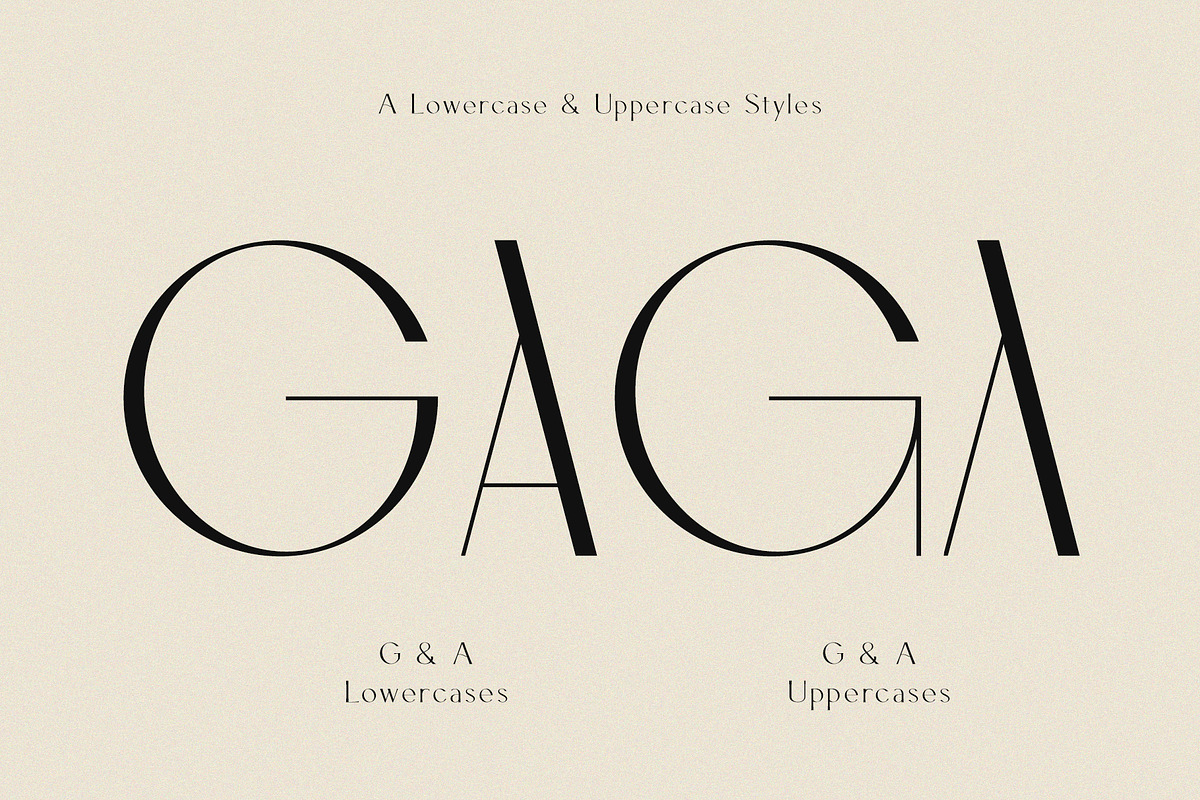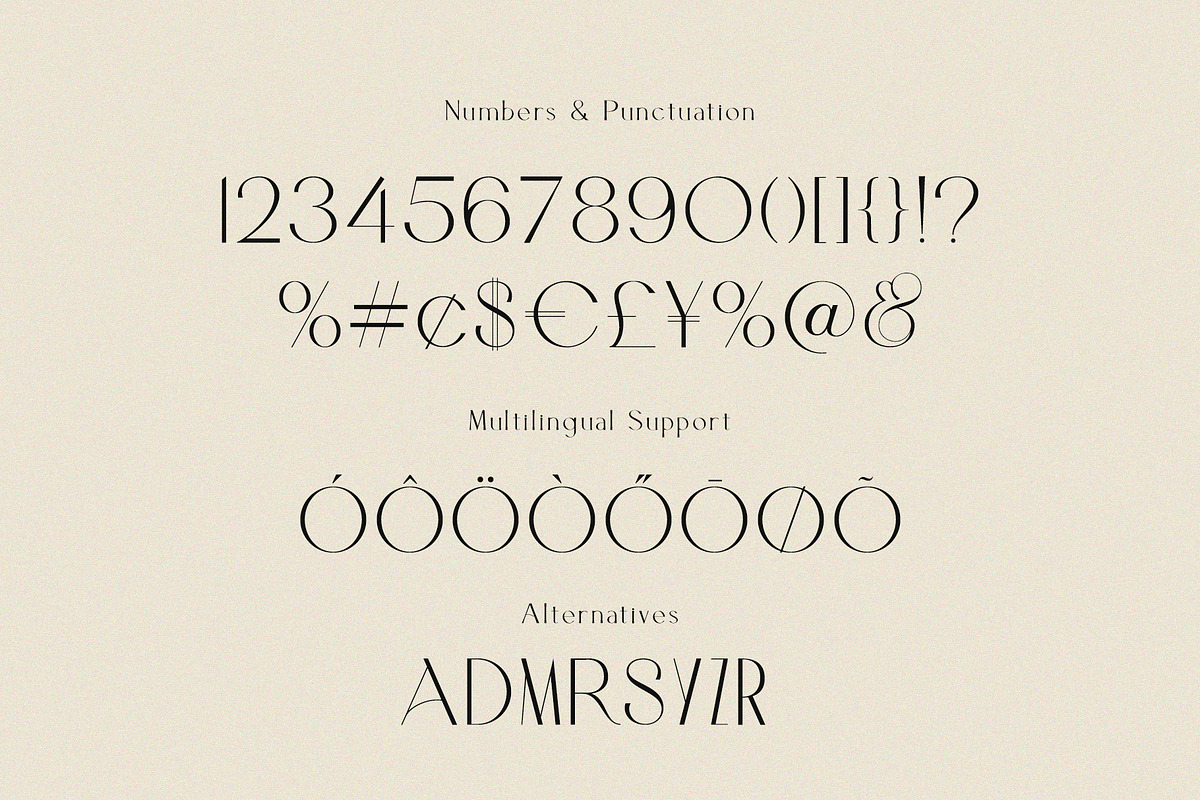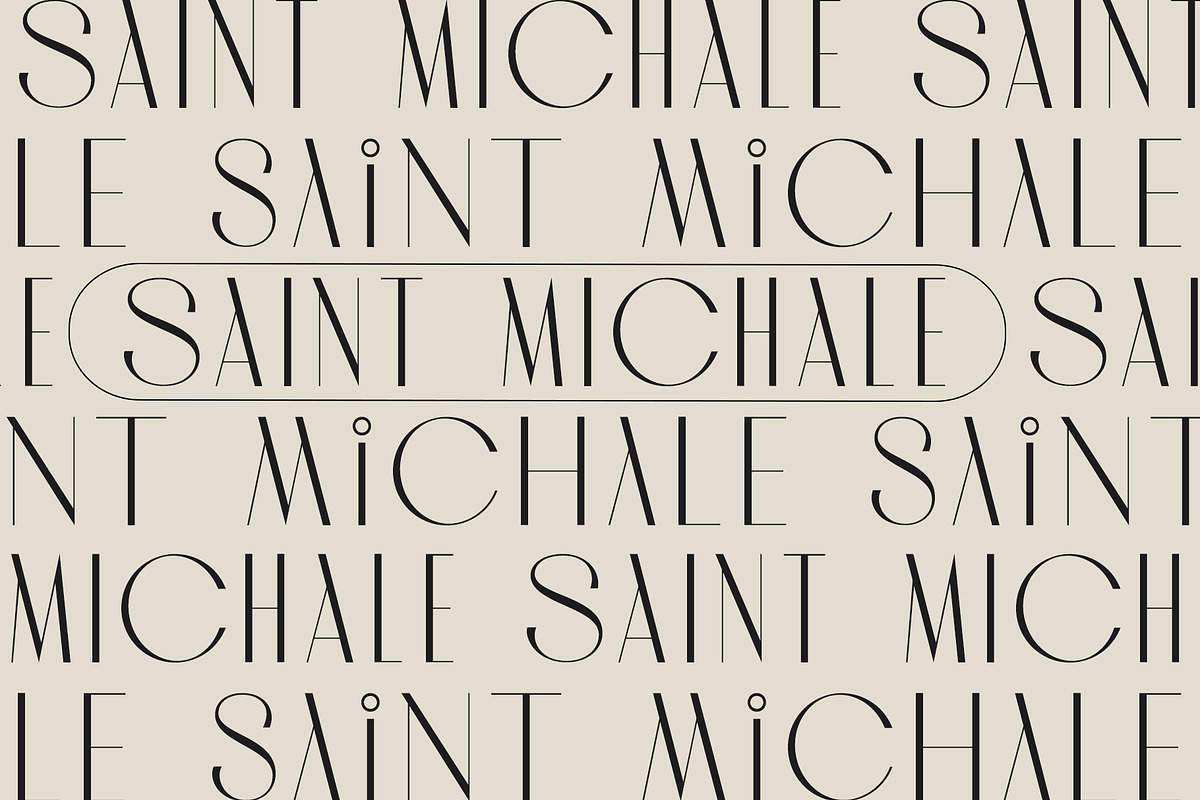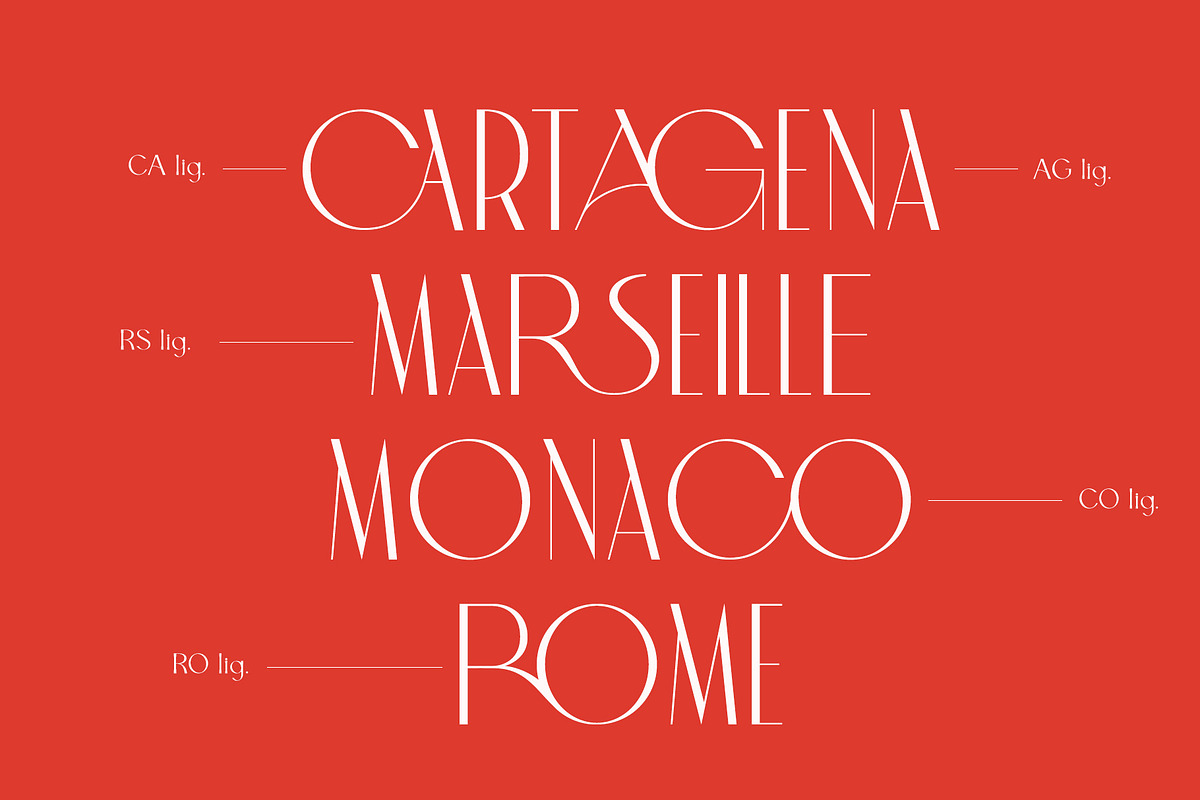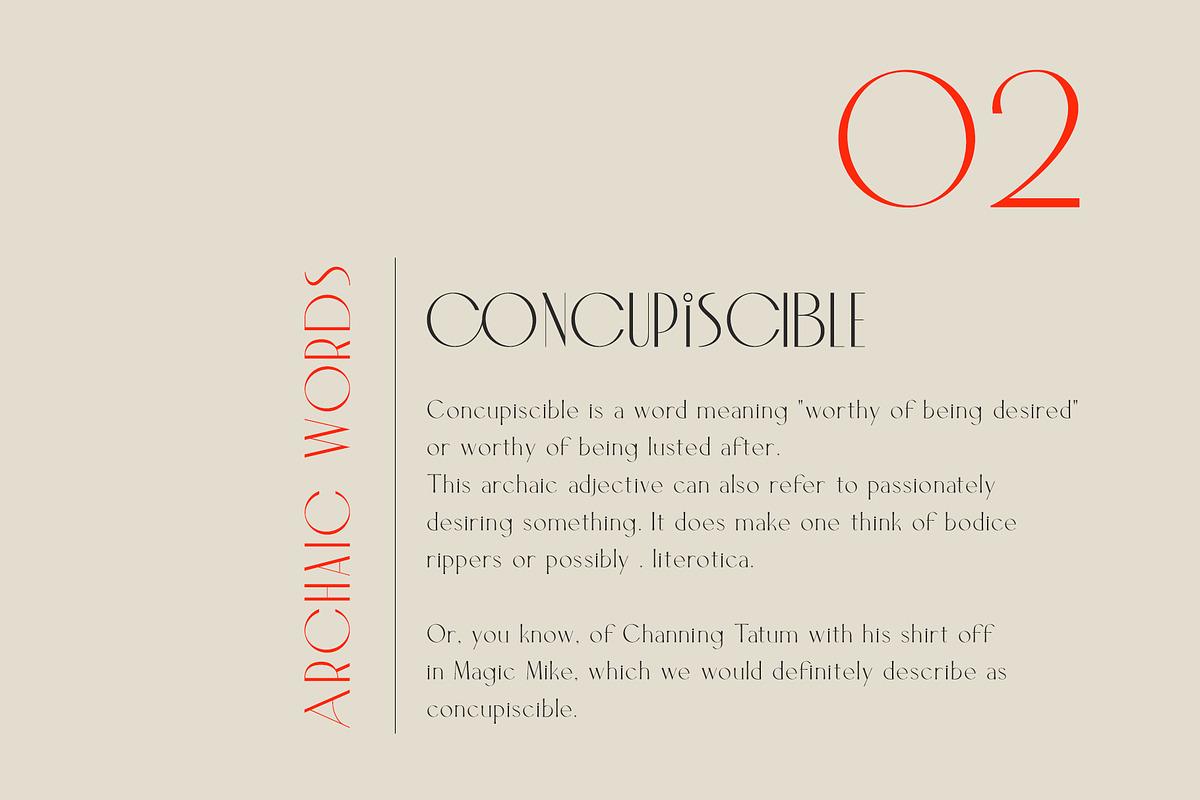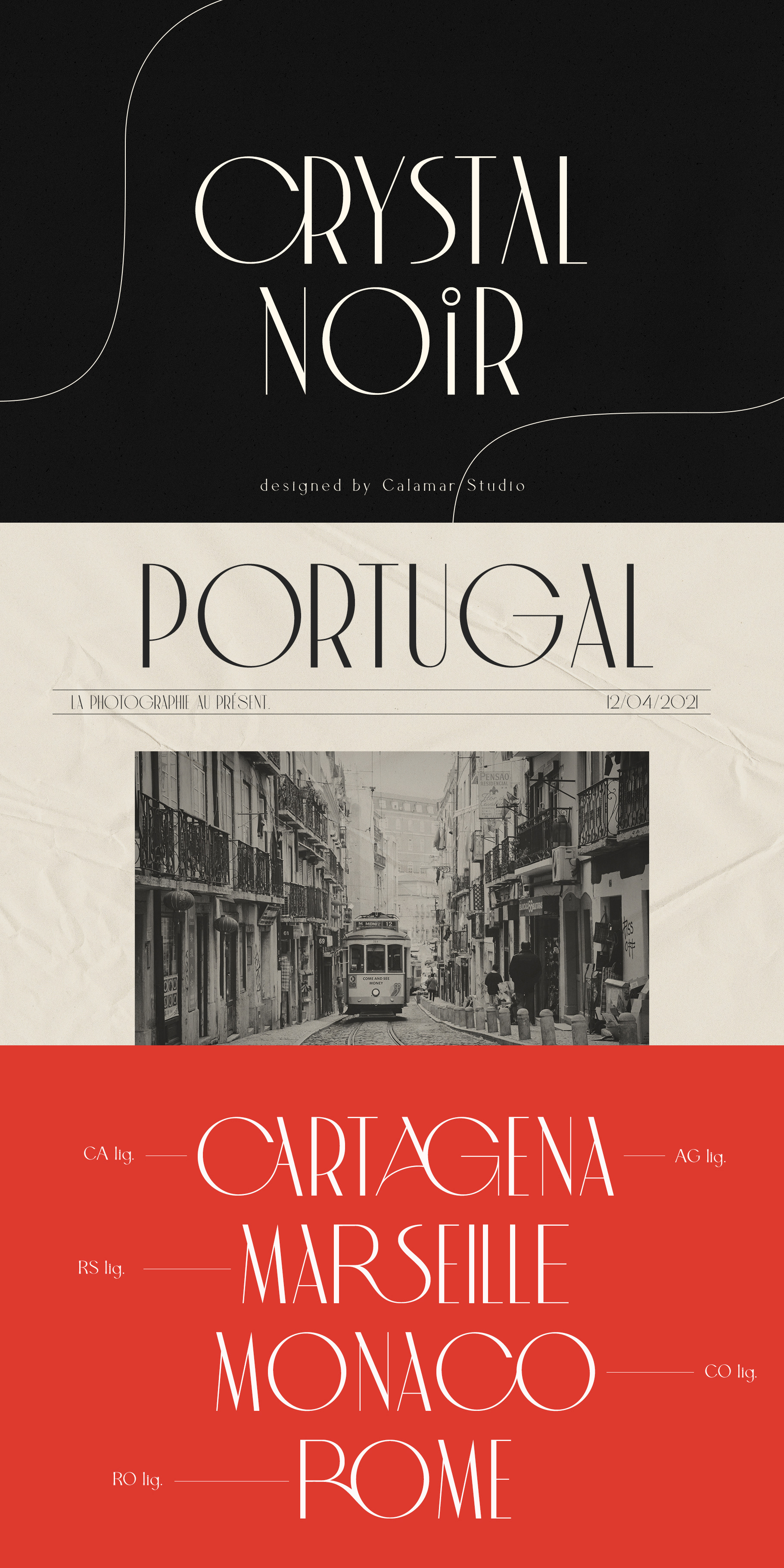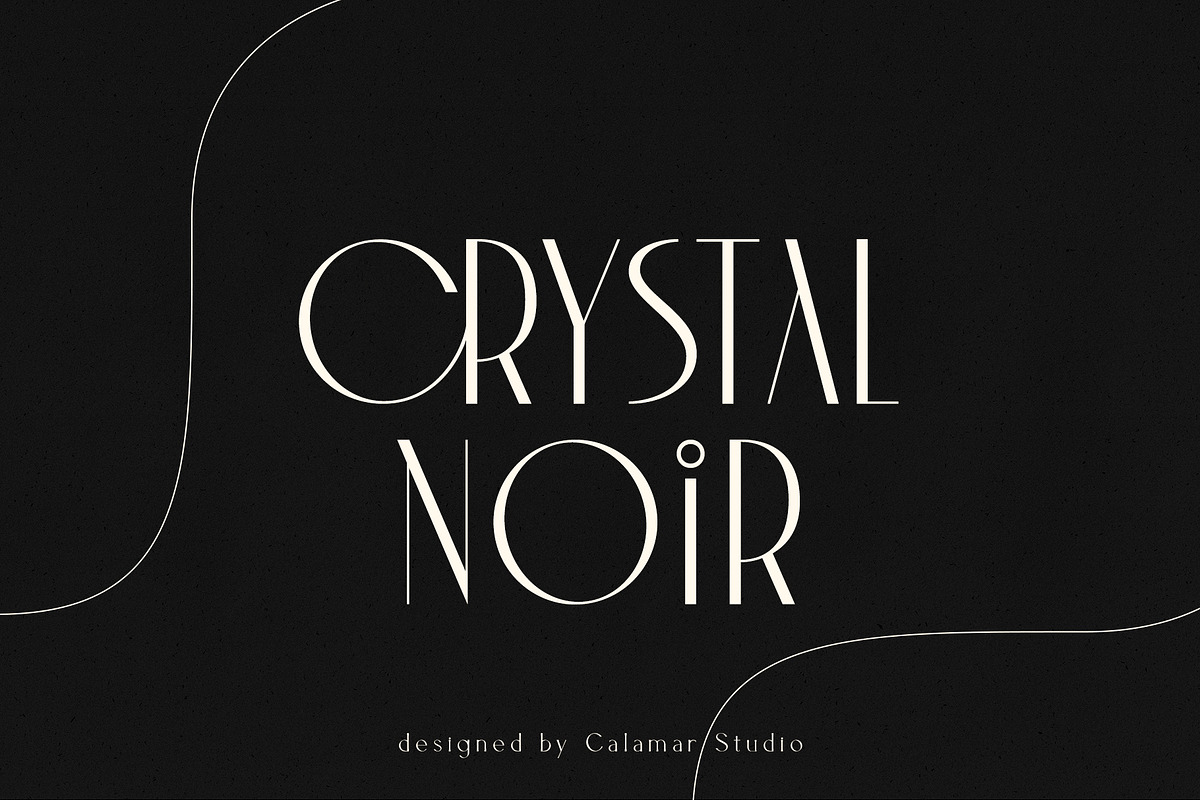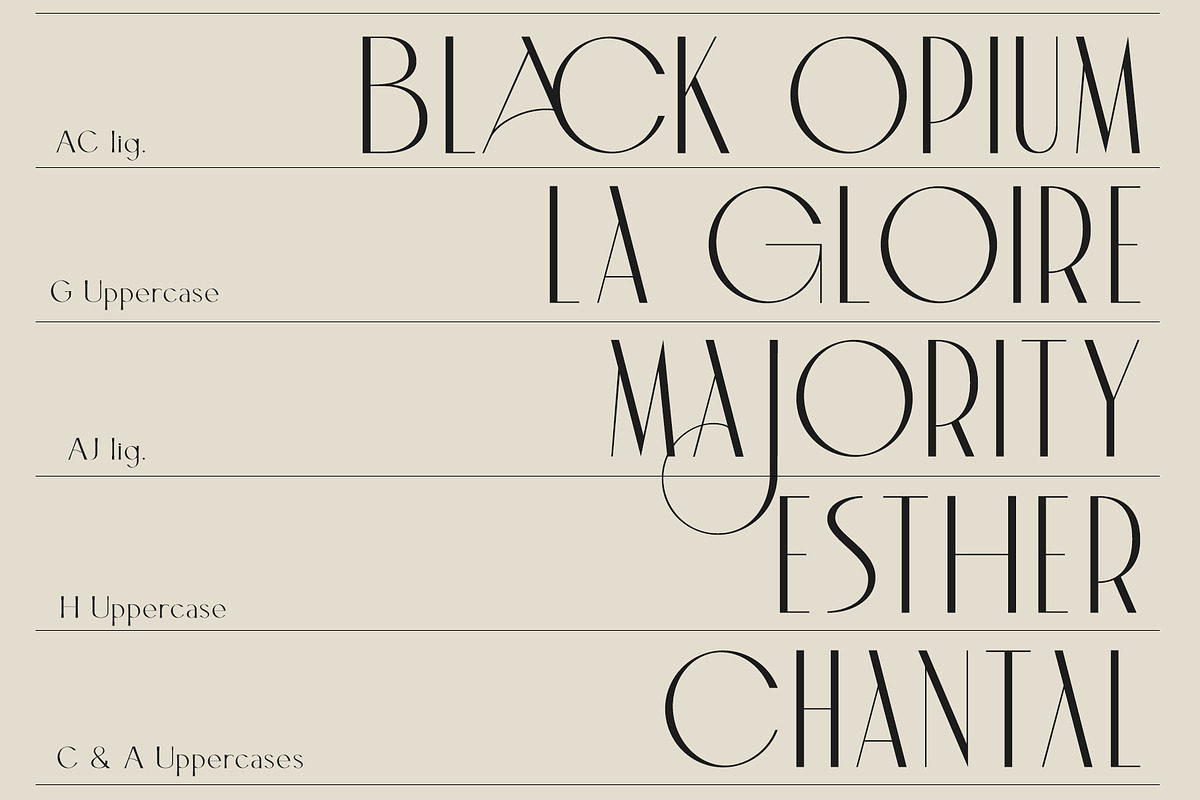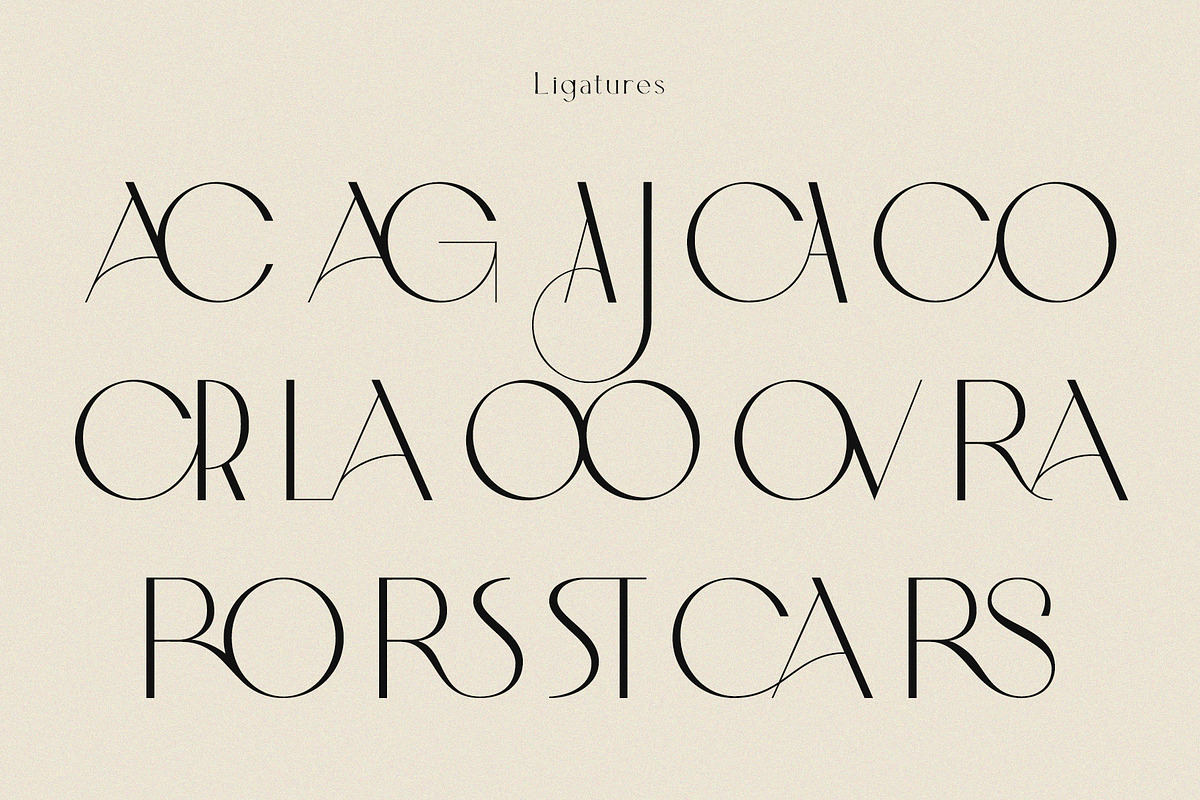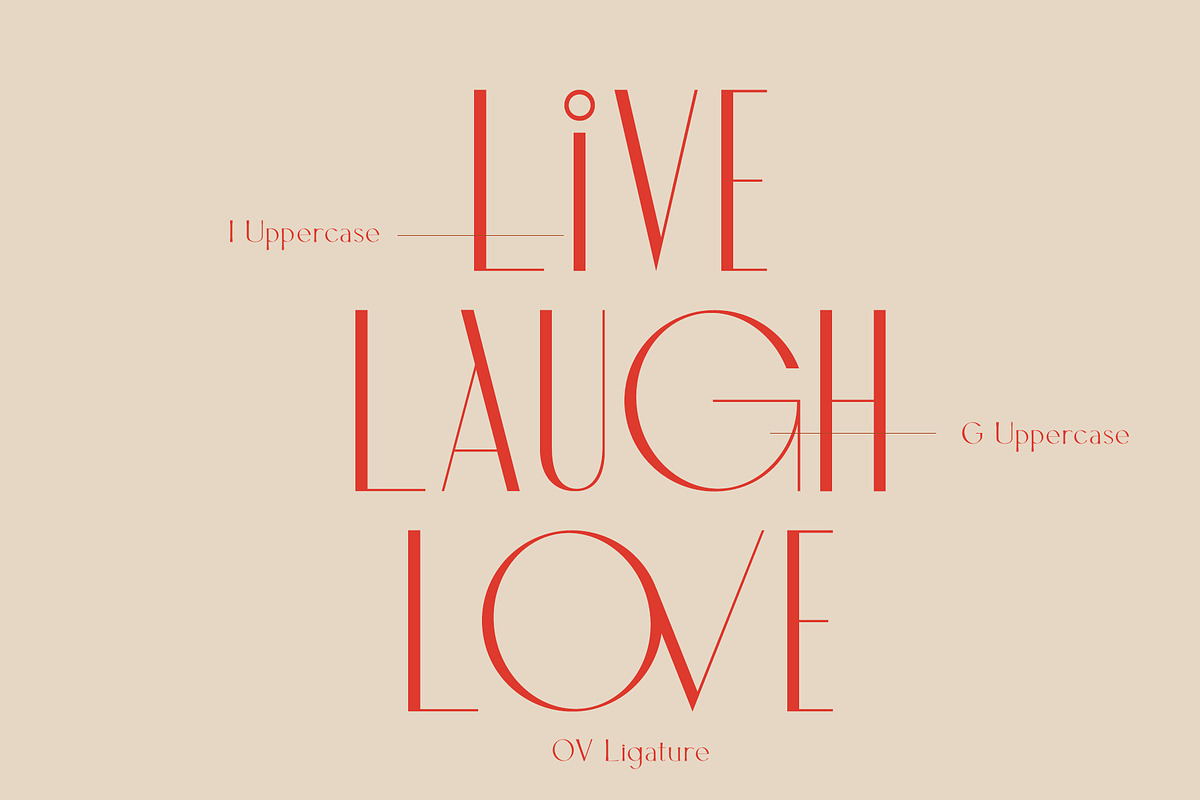
Crystal Noir | Sans Serif Font
Crystal Noir is my new elegant sans serif font that will bring in your projects a touch of luxury and style. It's perfect match for logotypes, branding, wedding monograms and invitations, blog headlines and much more.